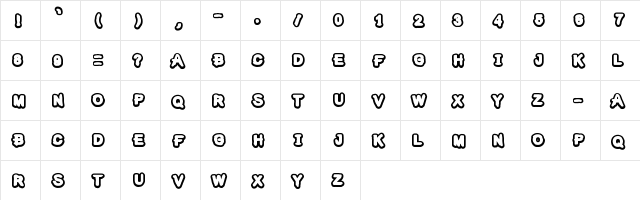
The Kids Mraker Regular
Design Context for The Kids Mraker Typeface
The Kids Mraker trades formality for fun, with bouncy, characterful letterforms that bring warmth and energy to any project.
Great for children's books, toy packaging, family event branding, and casual consumer-facing design.
Font Pairing: Pairs well with a rounded or humanist sans for body copy, maintaining the friendly tone without relying on The Kids Mraker to carry extended reading.
Pro Tip: Avoid using The Kids Mraker for long passages of text — it works best for headlines, labels, and short calls to action.